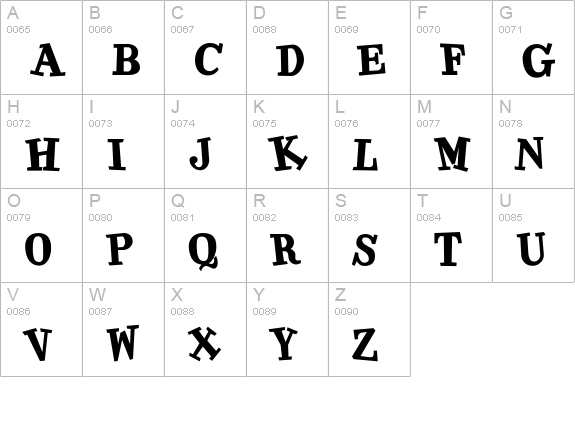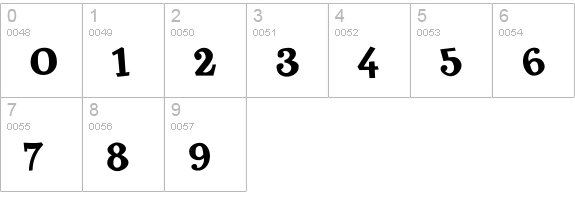
BolbodyBold Font Details
BolbodyBold font is a striking and bold typeface that commands attention with its strong presence and solid structure. Its thick strokes and sharp edges give it a modern and powerful aesthetic, making it perfect for headlines, logos, and other design projects that require a bold statement. What sets BolbodyBold font apart is not only its impressive design but also the fact that it is available for free download at FontsMarket.com. This means that you can easily access this eye-catching font and use it in your projects without any cost. Whether you're a designer looking to add some boldness to your creations or just someone who appreciates a strong and impactful font, BolbodyBold is a fantastic choice that won't break the bank. Download it for free today and elevate your designs with its bold and powerful presence.